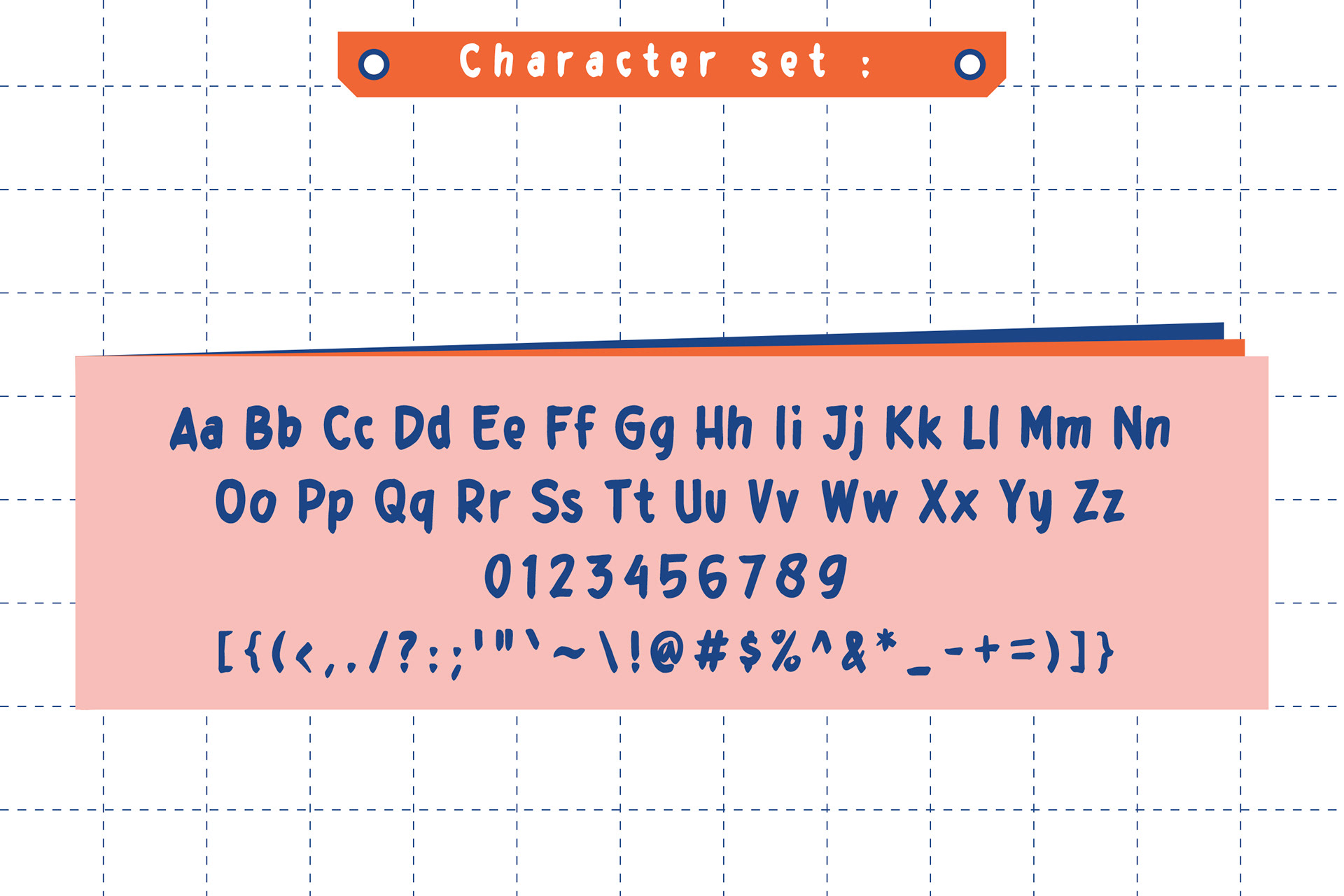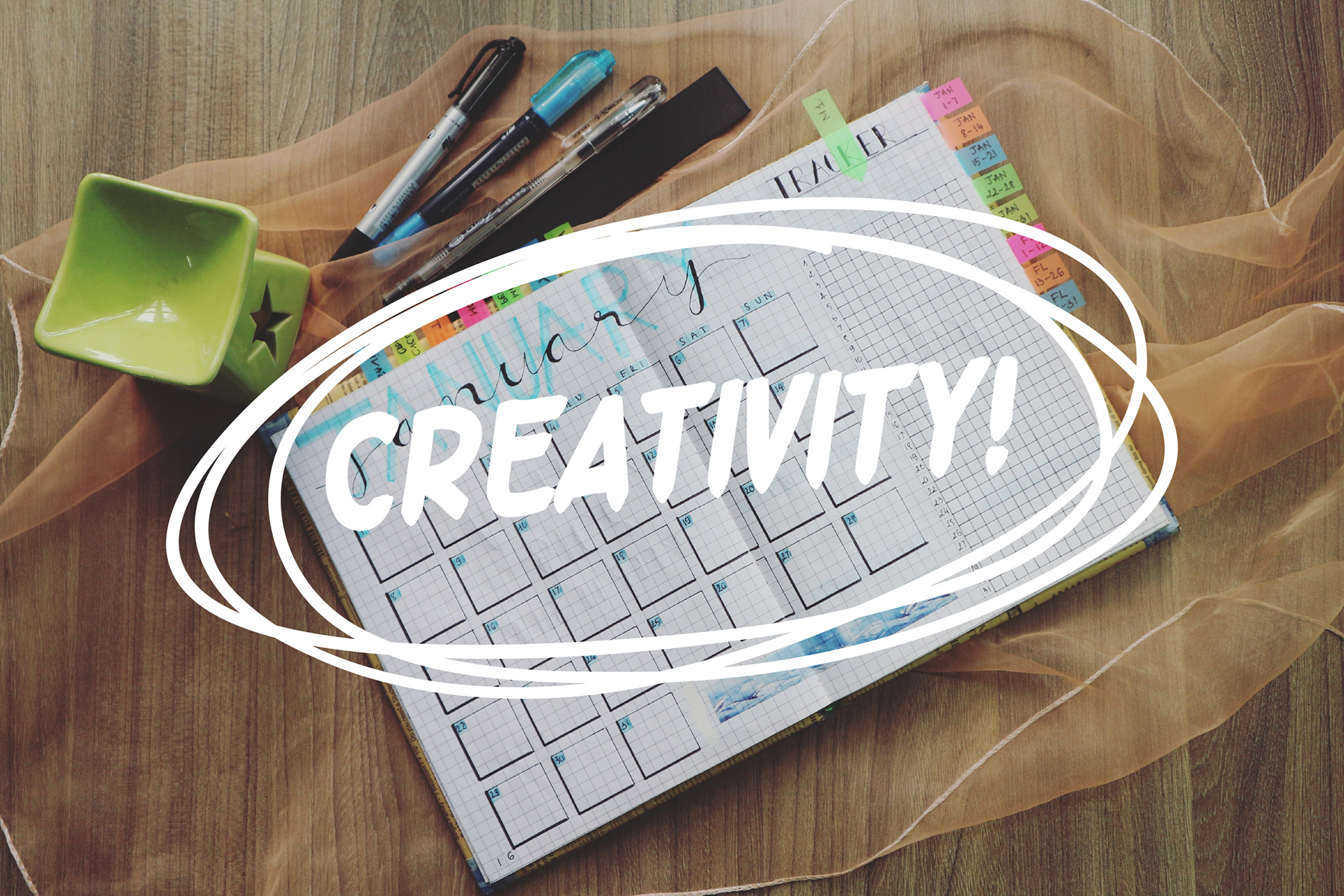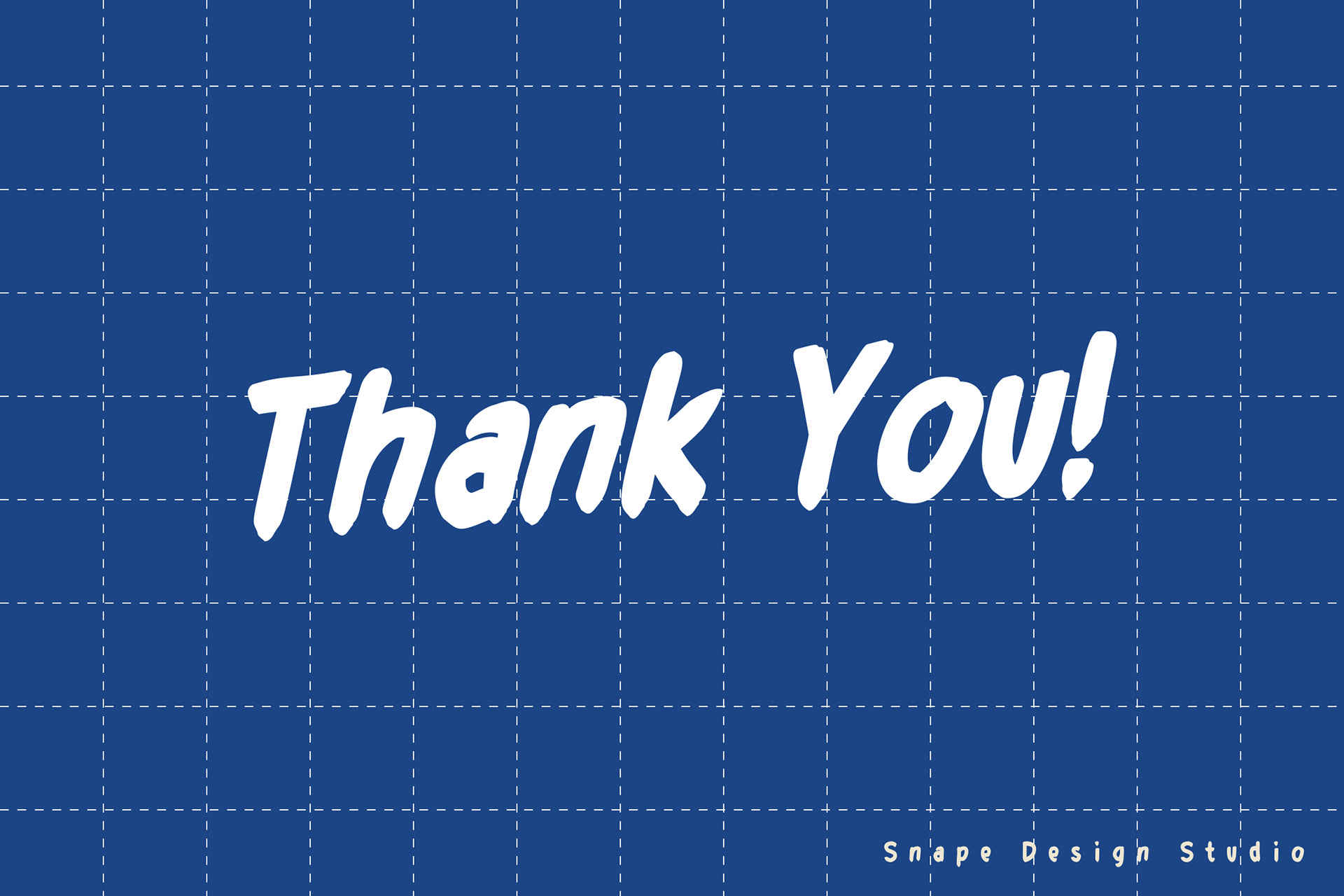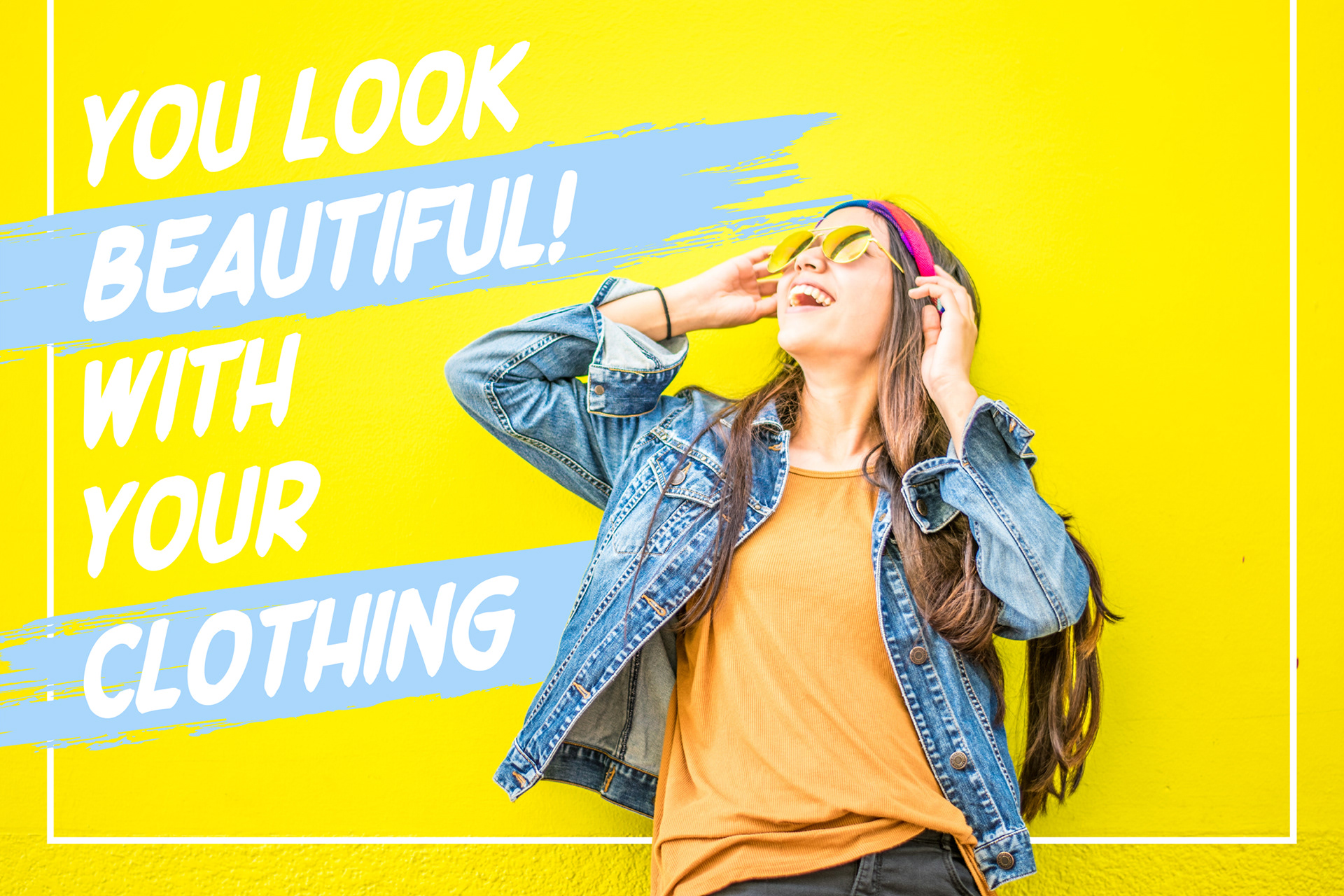
ABOUT THE FONT
Marker Attack is a simple and bold handwritten font. Incredibly versatile, this font fits a large variety of designs. Fall in love with it and make it your go-to font, no matter the occasion. Suitable for movie, documenter, film, logo, poster, game, book cover, headlines, title and many more projects.
Add this font to your creative ideas and notice how it will make them stand out!